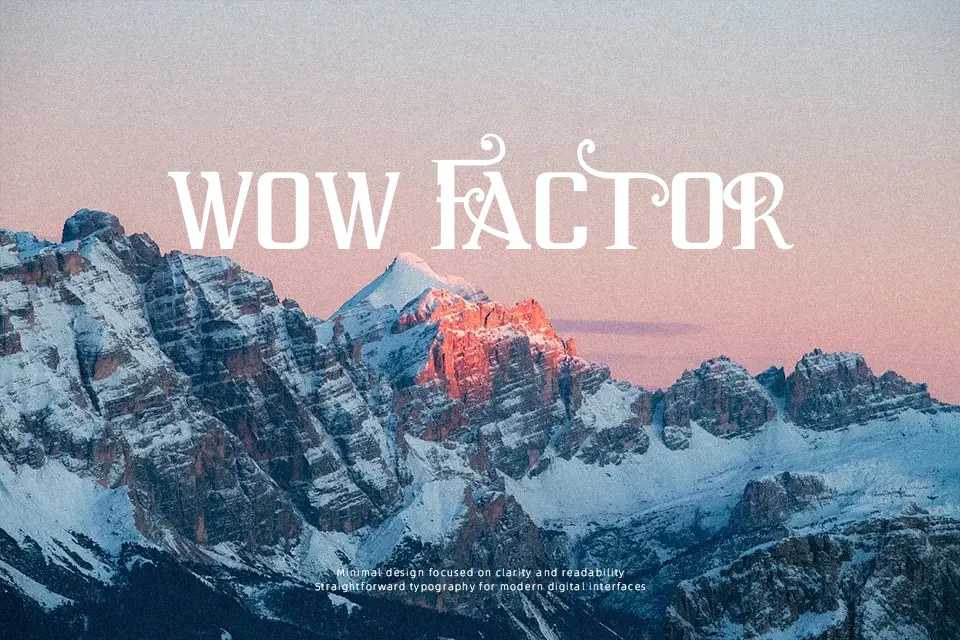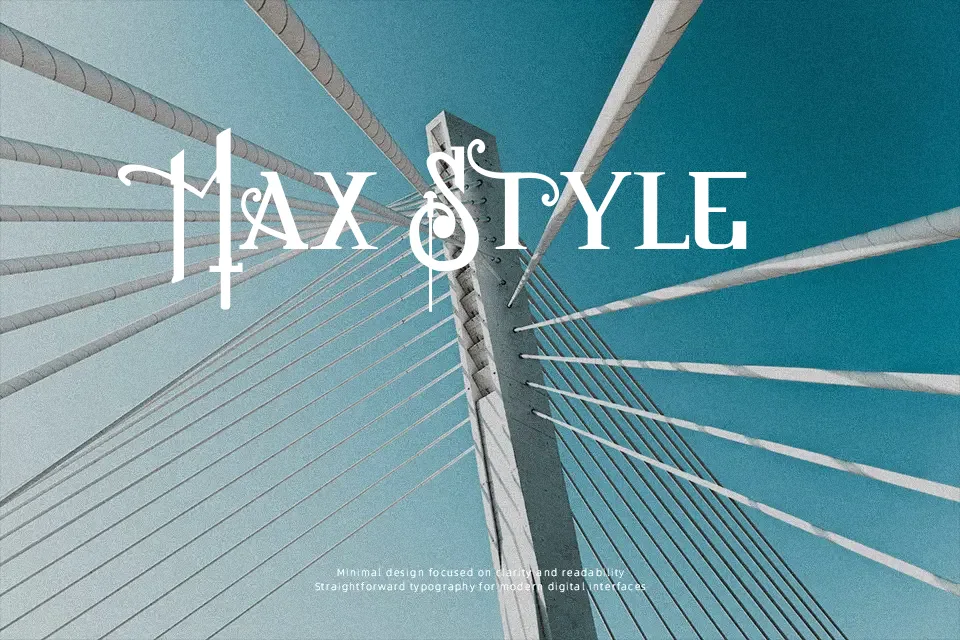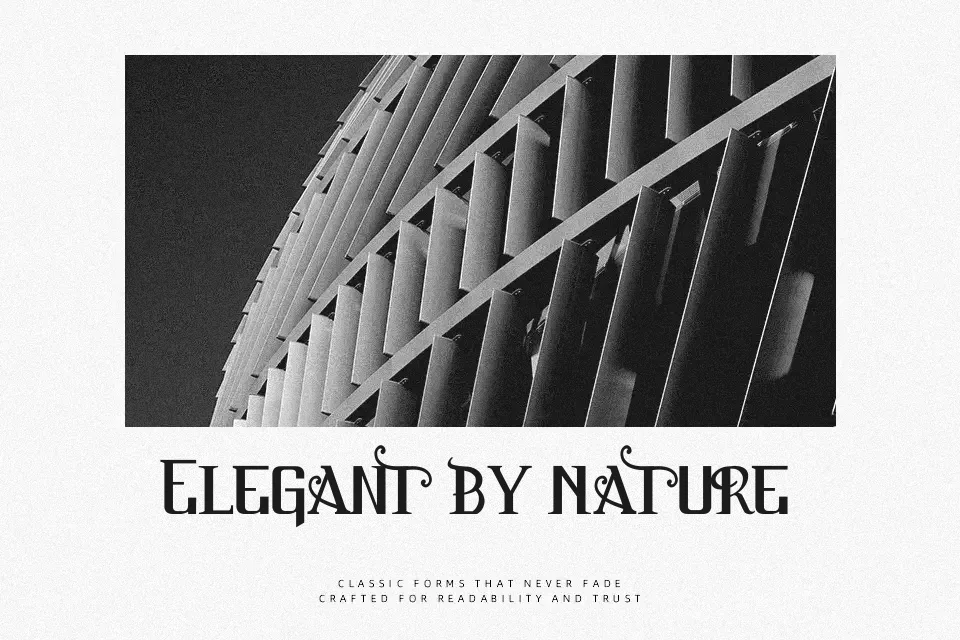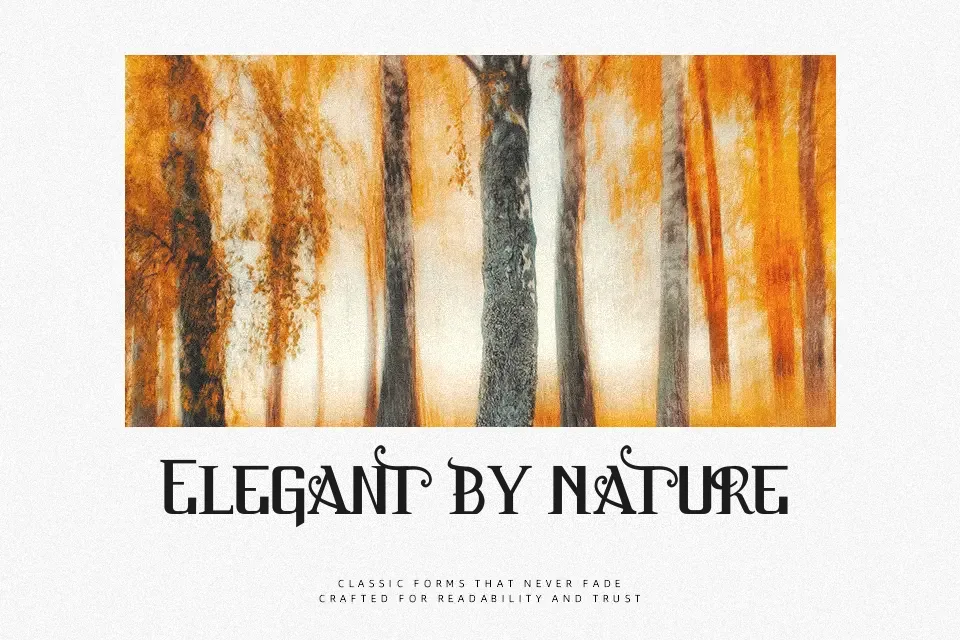
Sucker Font Font
Designed by Juan Casco
Sucker Font Font features sharply sculpted strokes, pronounced vertical contrast, and distinctive flared terminals that immediately command attention. The letterforms display tight spacing and expansive capital proportions, producing a rigid, theatrical rhythm across short text sequences. In large display settings, the bold serifs and angular contours preserve individual glyph clarity, making the design well suited for entertainment logos, promotional banners, and dramatic book jackets. However, the extreme stroke contrast and decorative flourishes significantly reduce reading comfort in continuous text layouts. The dense forms perform best when restricted to isolated title lines rather than dense editorial columns.
Best For: cinematic film titles, entertainment branding, fantasy book covers, dramatic event banners
Not Ideal For: long body paragraphs, small mobile interface text, multi-page document layouts, tabular data
Perfect for branding, film, and headline, with a bold and decorative style.